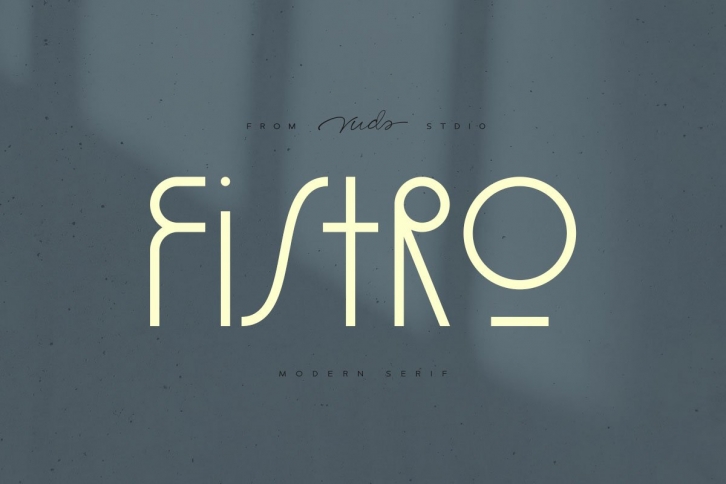
Introducing Fistro Font! Fistro is modern fashion font, every single letters have been carefully crafted to make your text looks unique.
This font including beautiful alternate glyph. You can access the alternate glyph via Font Book (Mac user) or Windows Character Map (Windows user), I've been put the link tutorial inside the zip file.